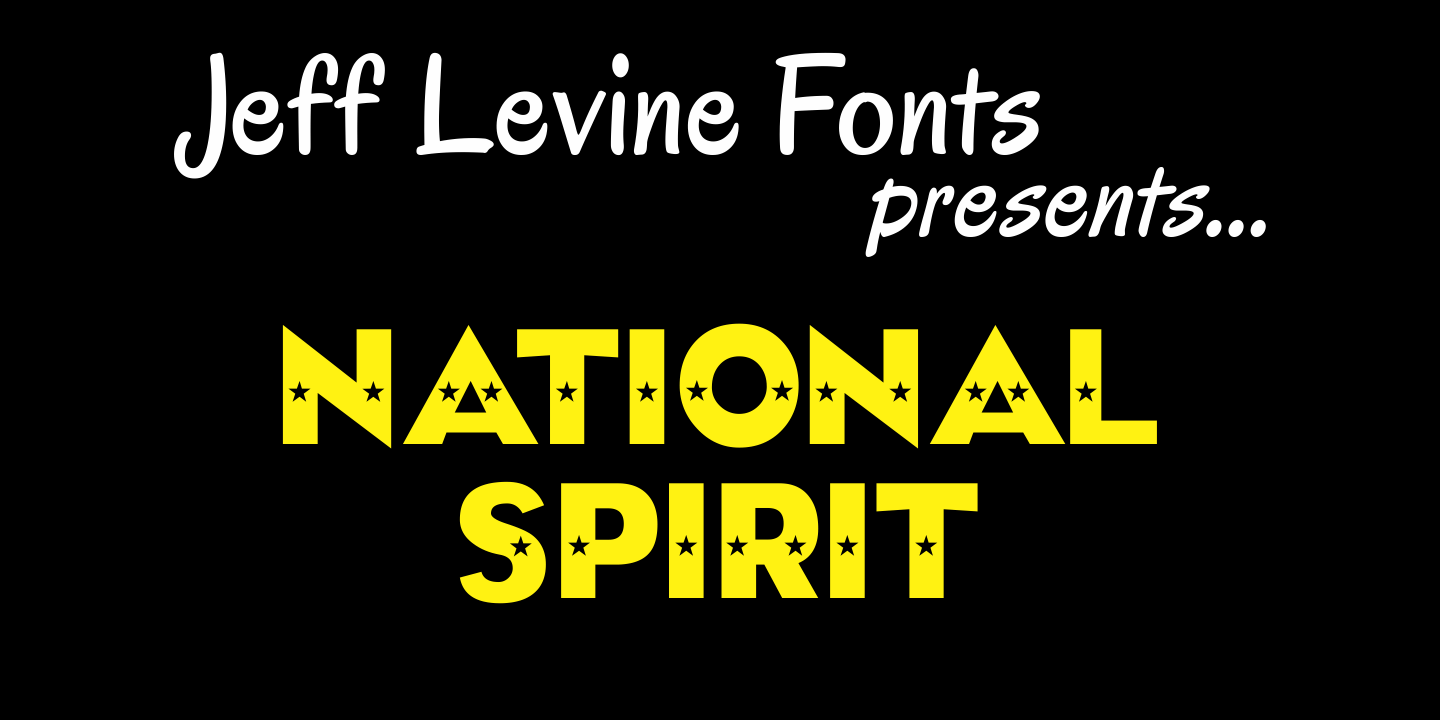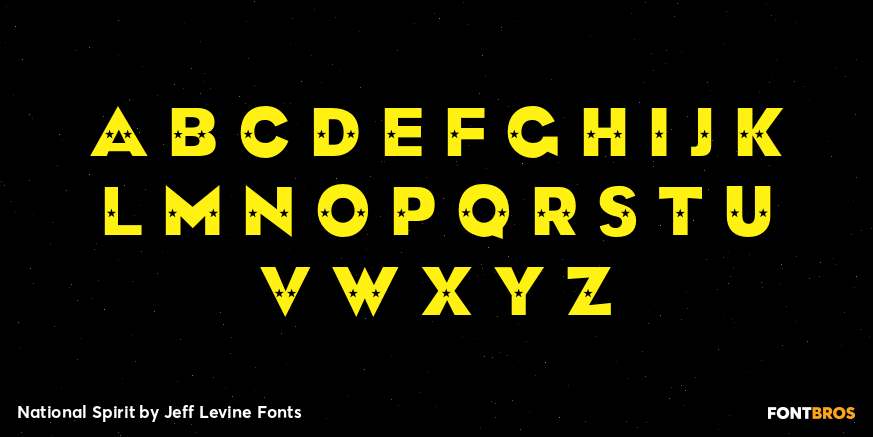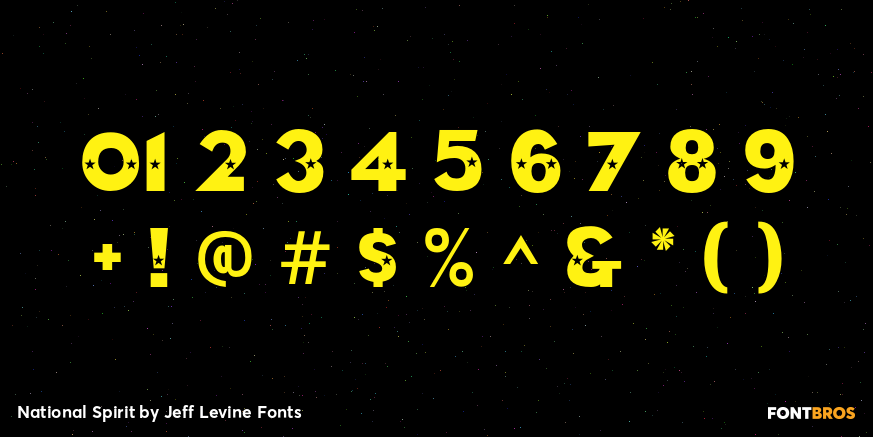
National Spirit
The basic type design for National Spirit JNL is known by many names, and has gained popularity since its use on the NRA posters of the Roosevelt era. This all-purpose font gets an extra boost of patriotism by the addition of stars. Its clean look typifies the Art Deco feel of 1930s America.